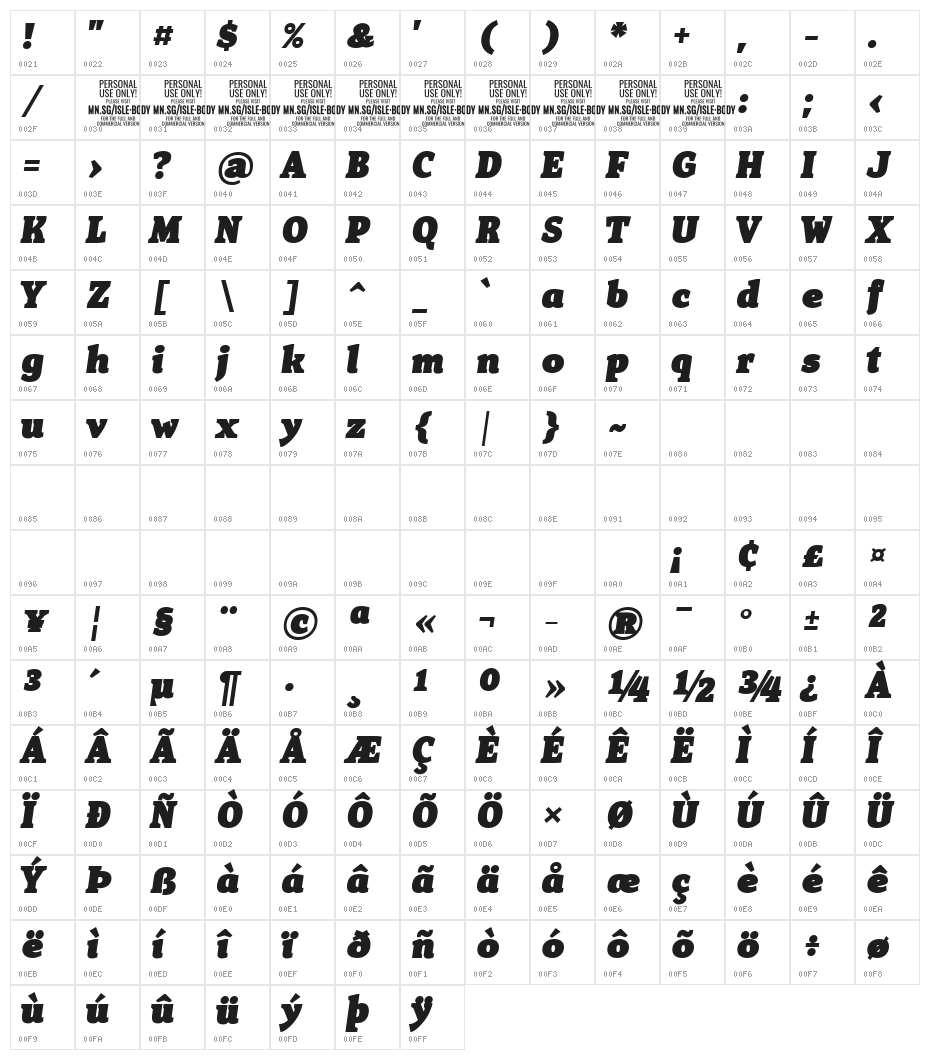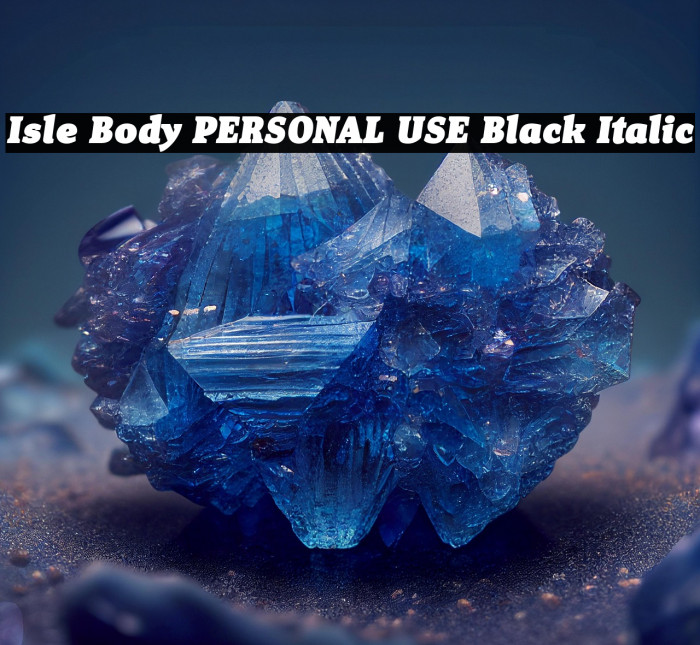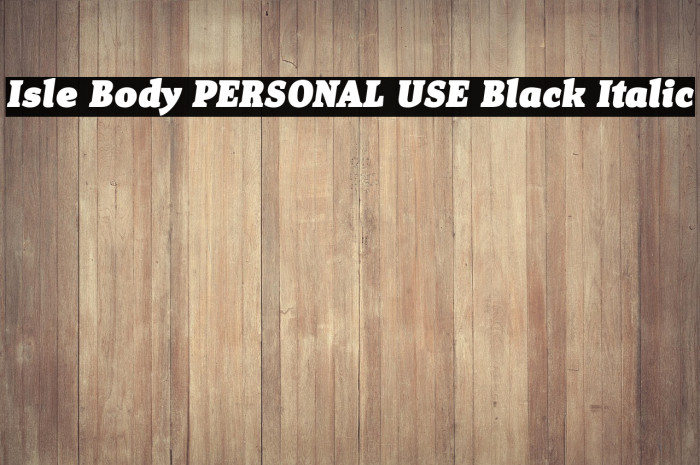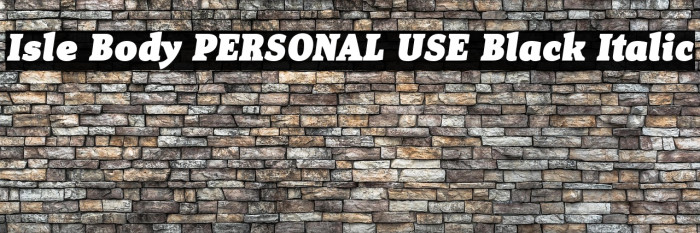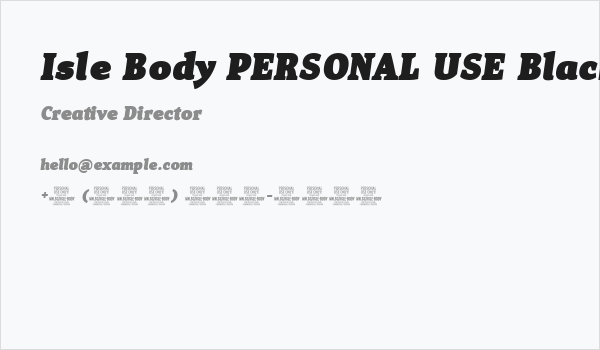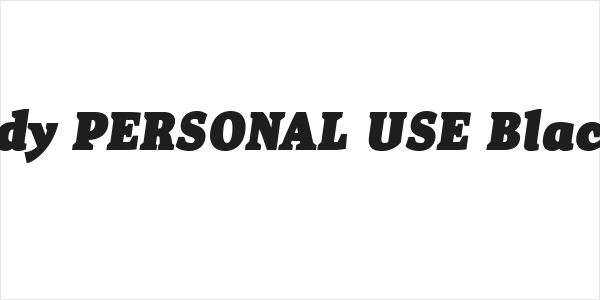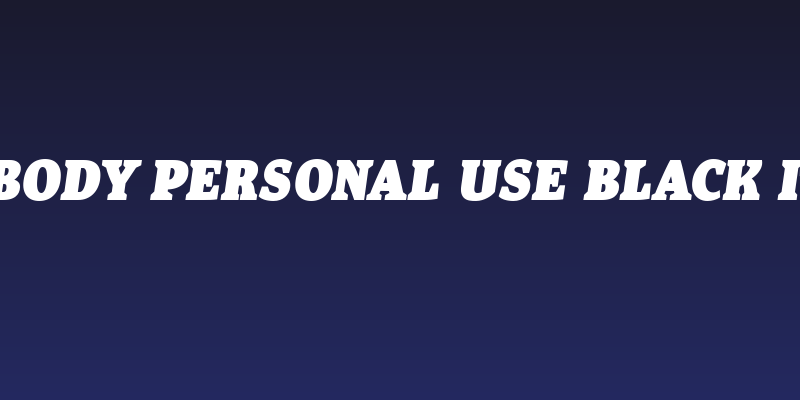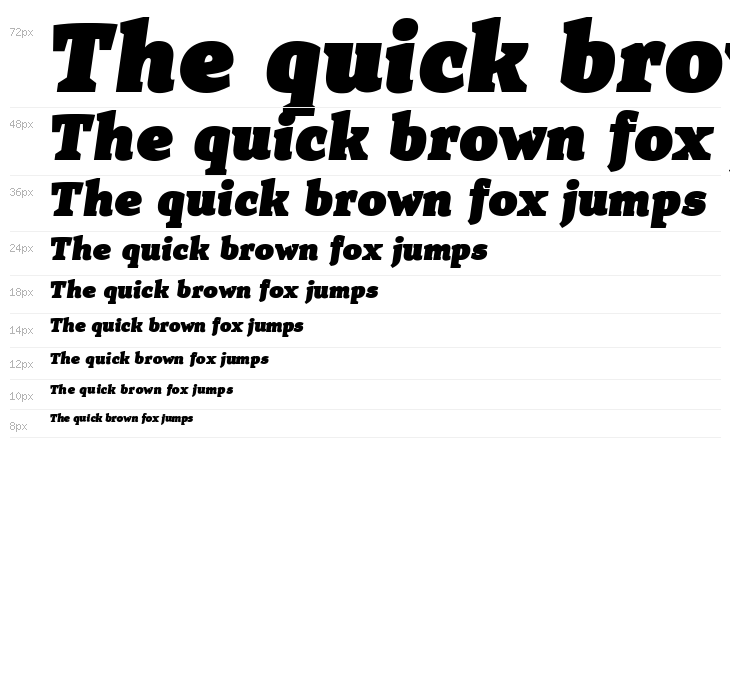
Isle Body PERSONAL USE Black Italic Font
Isle Body PERSONAL USE Black Italic Description
This font features a bold and dynamic style with a strong presence. The characters are designed with a slight slant, giving them an italicized appearance that adds a sense of motion and energy. The strokes are thick and consistent, providing a robust and impactful look. The uppercase and lowercase letters maintain a cohesive design, while the numerals and special characters complement the overall aesthetic. The font's boldness and italic nature make it suitable for attention-grabbing headlines and titles.